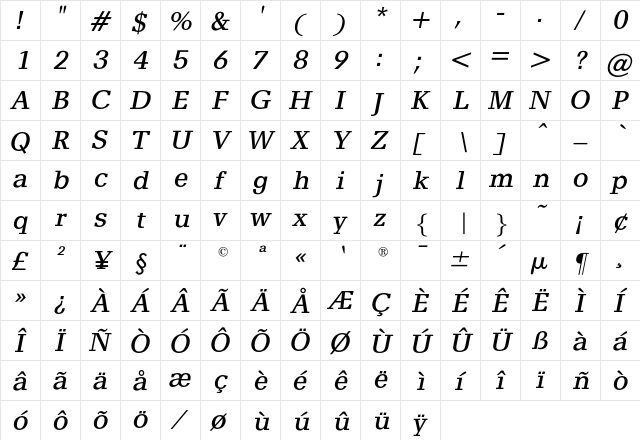
AlyssaOpti Italic
Design Context for AlyssaOpti Typeface
AlyssaOpti offers clean, dependable letterforms without strong stylistic allegiance, making it a practical choice for designers who need flexibility. The slanted form adds forward momentum and visual energy.
Pro Tip: Use AlyssaOpti for emphasis, pull quotes, and subheadings where its slanted energy can add rhythm to the layout.